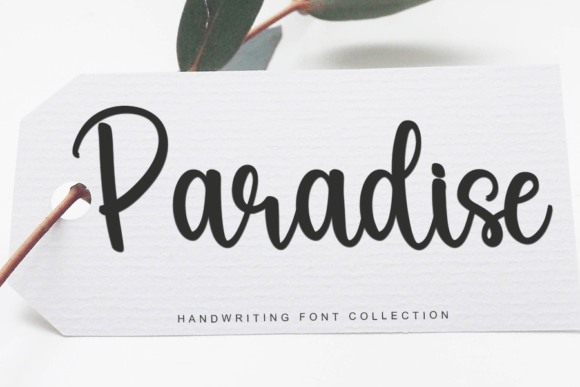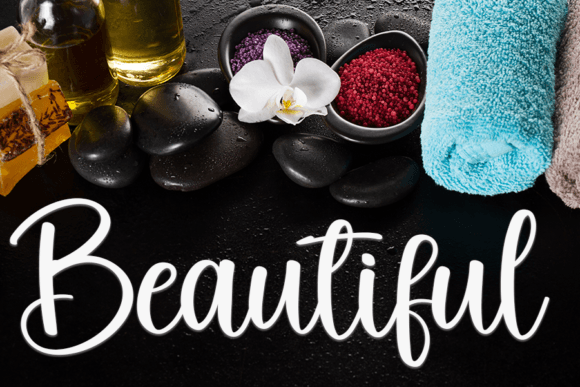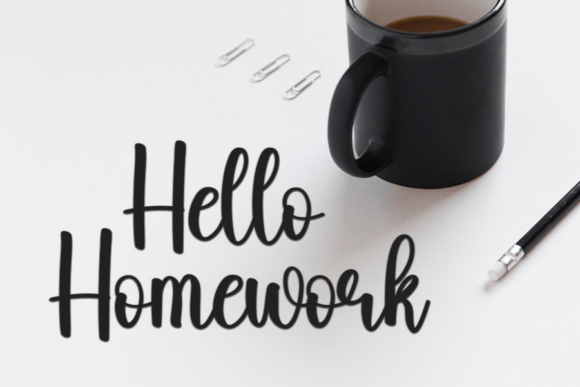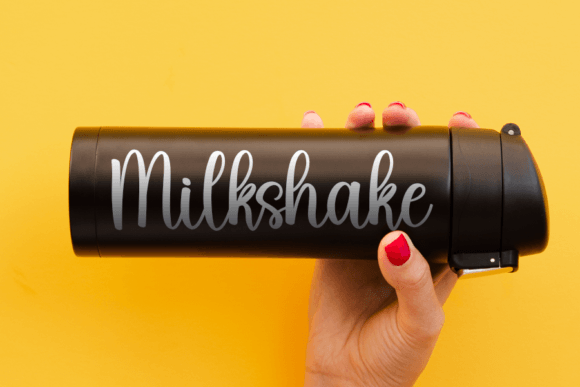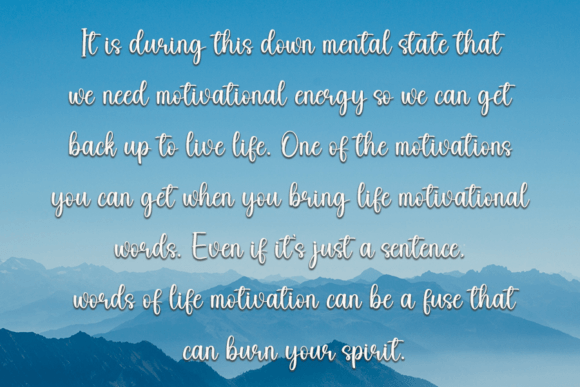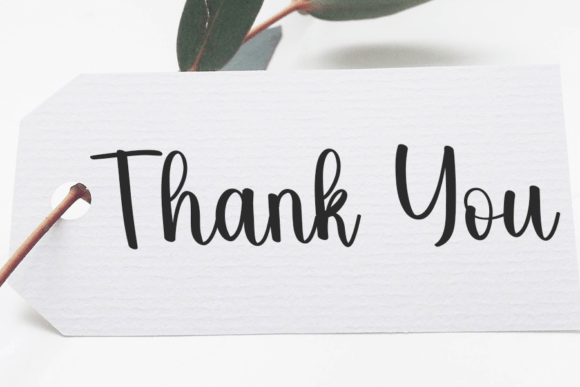
About Paradise Font
Paradise Font is a stylish and trendy handwritten typeface that perfectly blends modern design with classic calligraphy influences. Its sleek lines and graceful curves give it a refined yet contemporary feel, making it ideal for a wide range of creative projects.
A Modern Take on Classic Calligraphy
Inspired by timeless calligraphy, Paradise Font carries an air of sophistication and elegance. This balance of old and new makes it perfect for designers who want to incorporate classic beauty with a fresh, modern touch. The font’s clean, flowing strokes create a visually appealing harmony, suitable for both formal and casual designs.
Perfect for Elegant Designs
This font works wonderfully for wedding invitations, greeting cards, logos, branding, and other projects that require a touch of class. Its elegant form elevates every design, making your work stand out with a stylish and polished look. ParadiseFont adds a luxurious feel without losing readability or warmth.
Versatility Across Various Uses
ParadiseFont is incredibly versatile. Whether you use it for digital media, print projects, or packaging design, it maintains its charm and impact. Its smooth, easy-to-read characters ensure that your message is communicated clearly, while its unique style grabs attention.
Why Paradise Font?
Choosing ParadiseFont means giving your designs a contemporary yet timeless quality. Its impeccable form and calligraphy-inspired details bring sophistication and flair to any project. Whether you’re working on personal crafts or professional branding, ParadiseFont offers elegance and class in every letter.